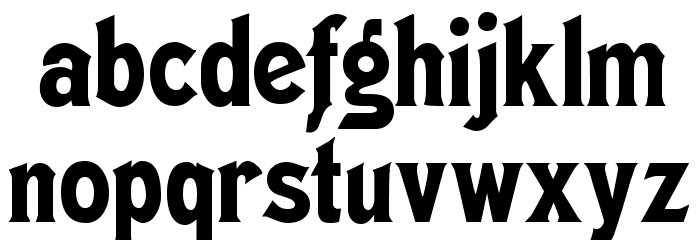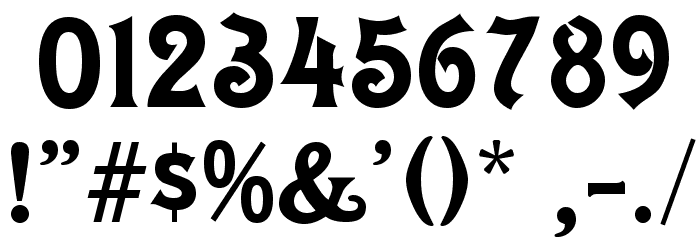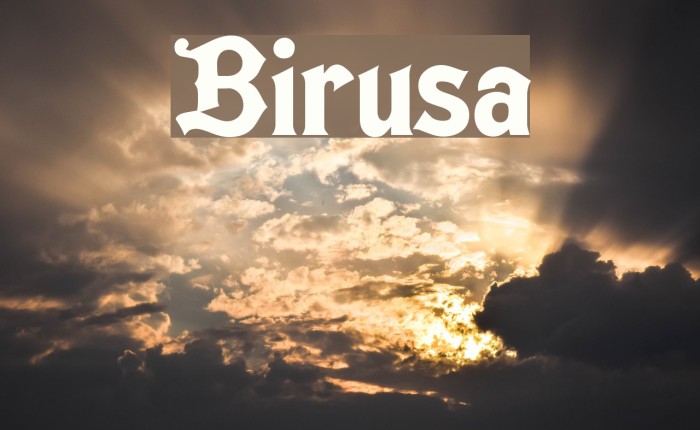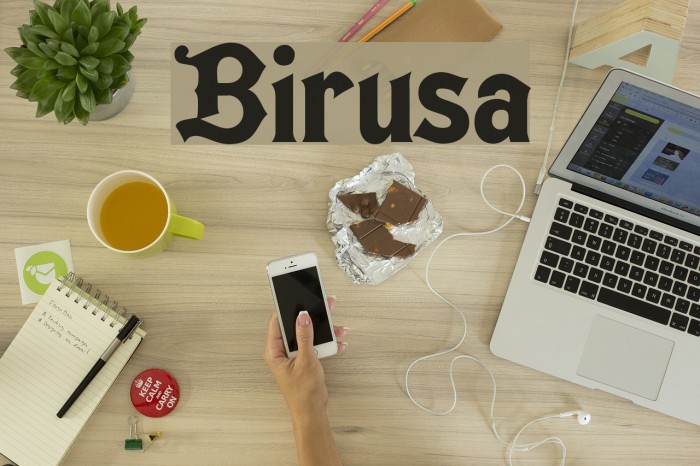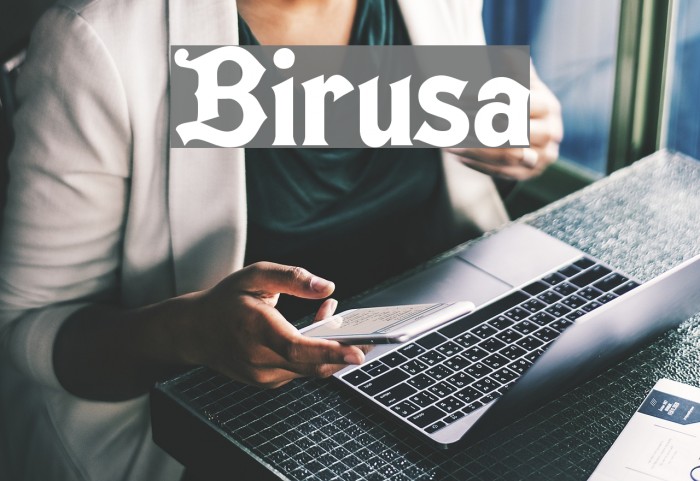
Birusa Font
This font features a bold and dramatic style with a distinct blackletter influence. The uppercase letters are ornate, with sharp angles and pointed serifs, creating a sense of historical elegance. The lowercase letters maintain the same intricate detailing, offering a cohesive look throughout. The numerals are equally stylized, with unique curves and flourishes that add to the overall aesthetic. Special characters are designed to match the elaborate style, making this font suitable for decorative purposes.
A bold, blackletter-inspired font with ornate detailing.
- Proposed Projects: Ideal for projects that require a historical or gothic touch, such as event posters, book covers, or branding for vintage-themed products.
- Overall Style: Vintage
- Use Case: Logos, Headlines, Decorative text